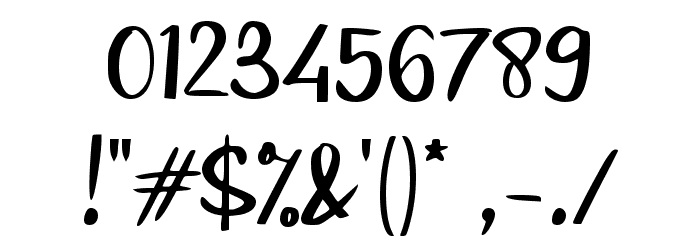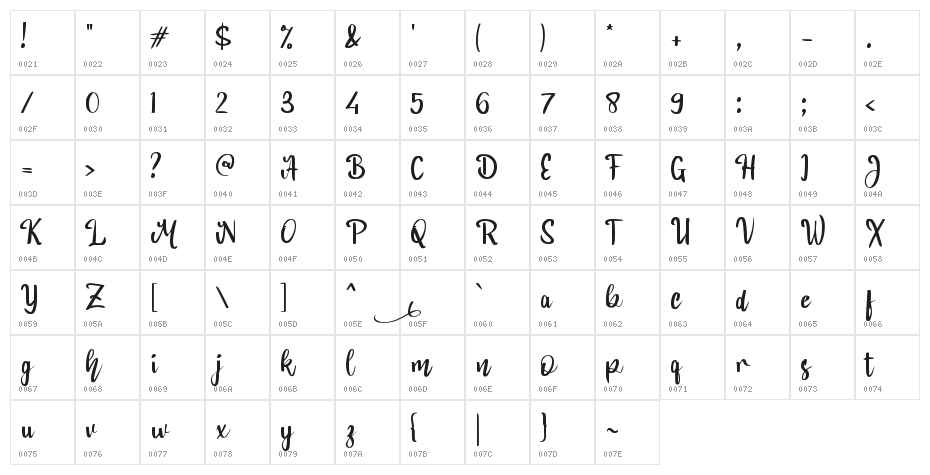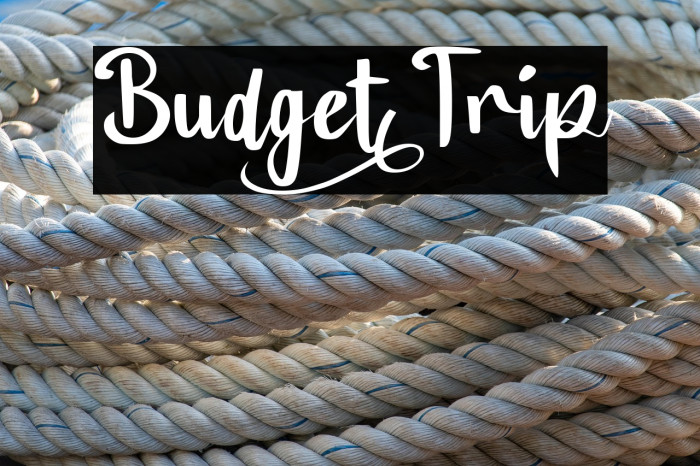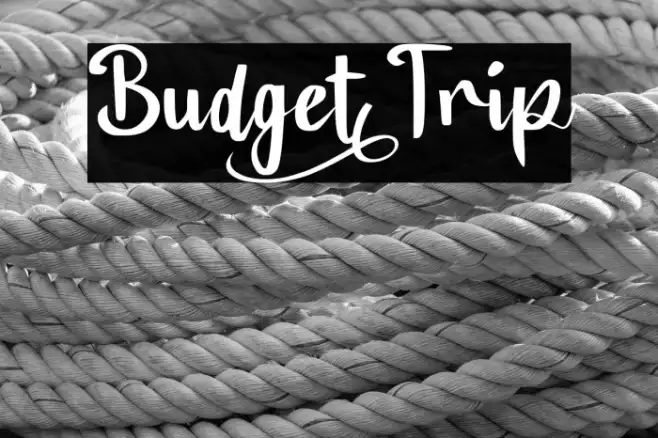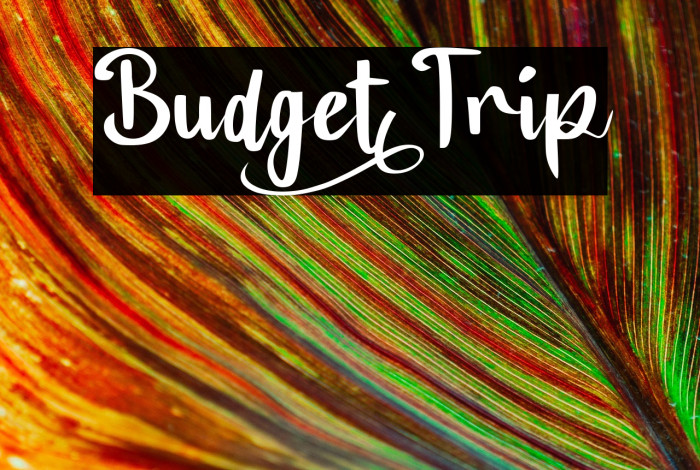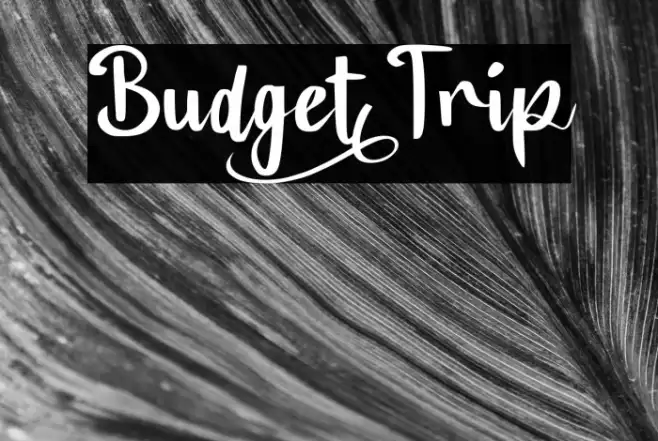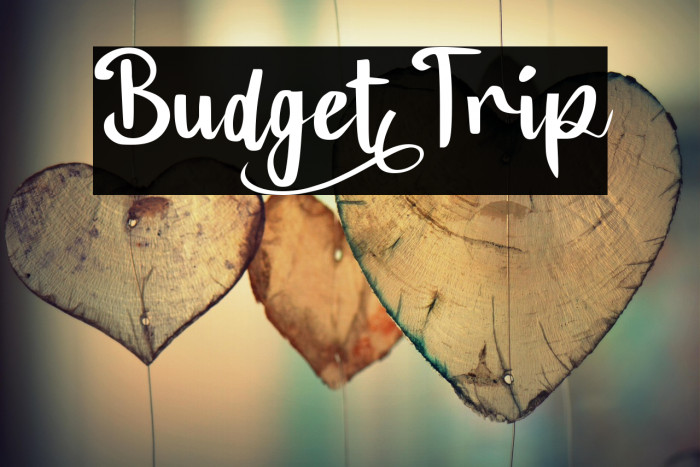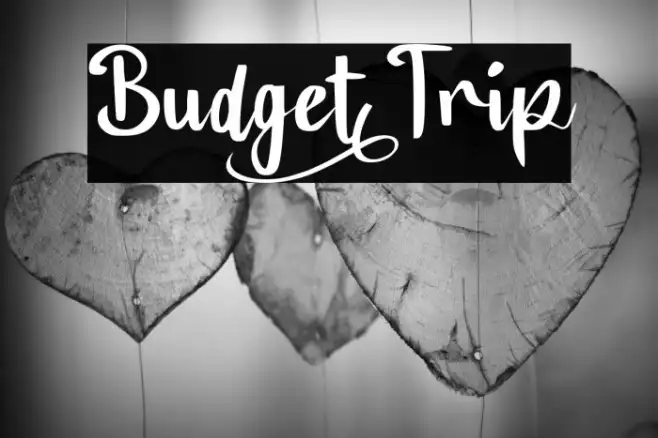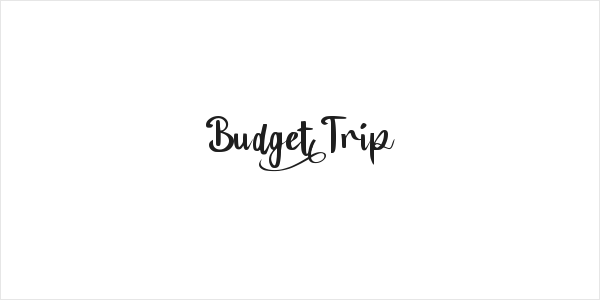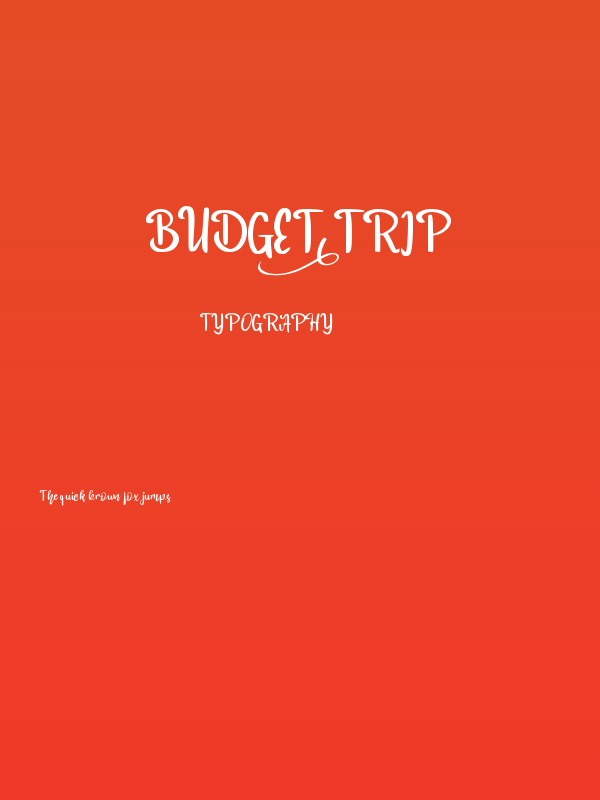
Budget_Trip Font
Budget_Trip Description
This font features a lively and expressive script style, characterized by its flowing, cursive letters that exude a sense of elegance and playfulness. The uppercase letters are bold and dynamic, with a slight slant that adds to their energetic appearance. The lowercase letters maintain a consistent flow, with smooth connections between characters, enhancing the font's cohesive look. Numbers are equally bold and maintain the same playful style, making them stand out. Special characters are creatively designed, fitting seamlessly with the overall aesthetic. This font is perfect for adding a personal touch to any project, combining readability with artistic flair.
| Proposed Projects | Ideal for wedding invitations, greeting cards, branding, and social media graphics. |